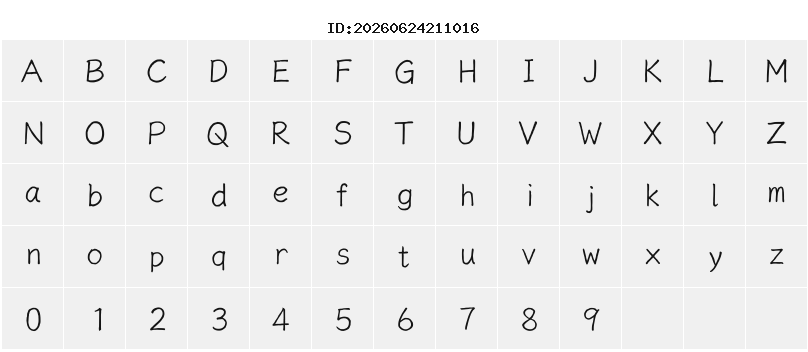
ToneOZ-Tsuipita-TC Preview
• Font Name: ToneOZ-Tsuipita-TC
• Font Style: Tsuipita-TC
• Font ID: FontForge 2.0 : ToneOZ-Tsuipita-TC : 11-6-2024
• Full Font Name: ToneOZ-Tsuipita-TC
• Version: Version 0.240612
• PostScript Name: ToneOZ-Tsuipita-TC
• Designer: 台式補字:Jeffrey Xuan (Chih-Lin Hsuan) 港式作:阿坤
About ToneOZ-Tsuipita-TC.ttf
ToneOZ-Tsuipita-TC.ttf is a modern, elegant sans-serif font designed for ultimate readability and visual harmony. Perfect for branding, headlines, web design, and print materials.